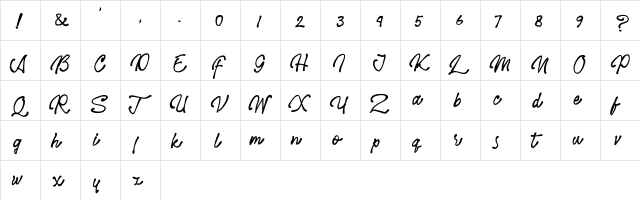
Hero Polpen Regular
| Foundry | Steven Joss |
| Designer | Steven Joss |
Design Context for Hero Polpen Typeface
Hero Polpen takes a measured approach to typography — its balanced proportions and neutral character make it a reliable workhorse for both digital and print work.